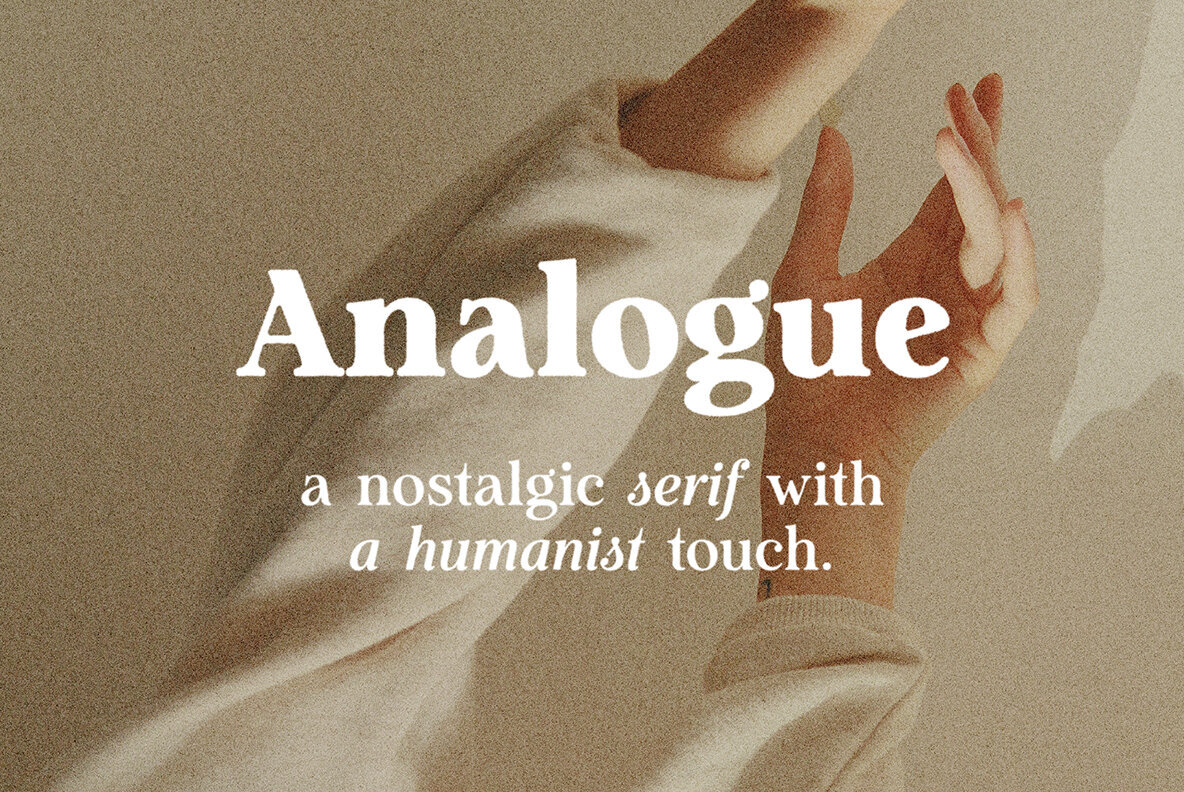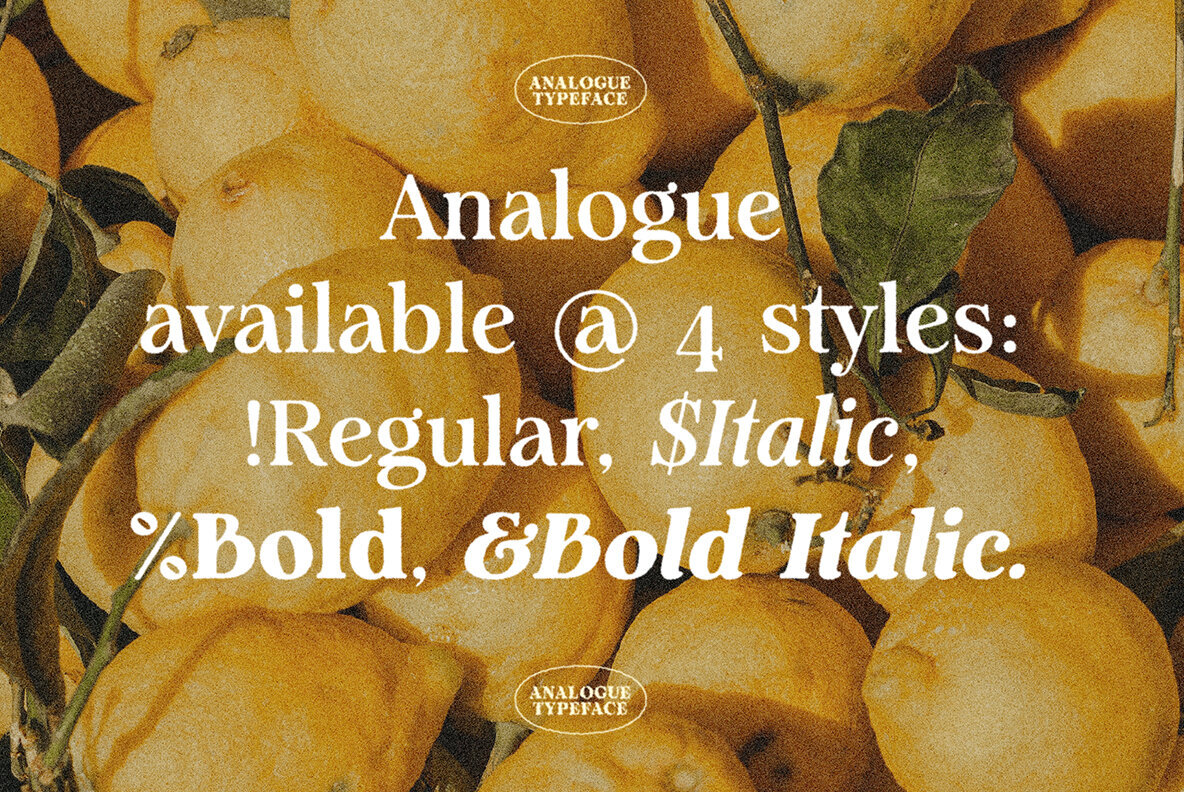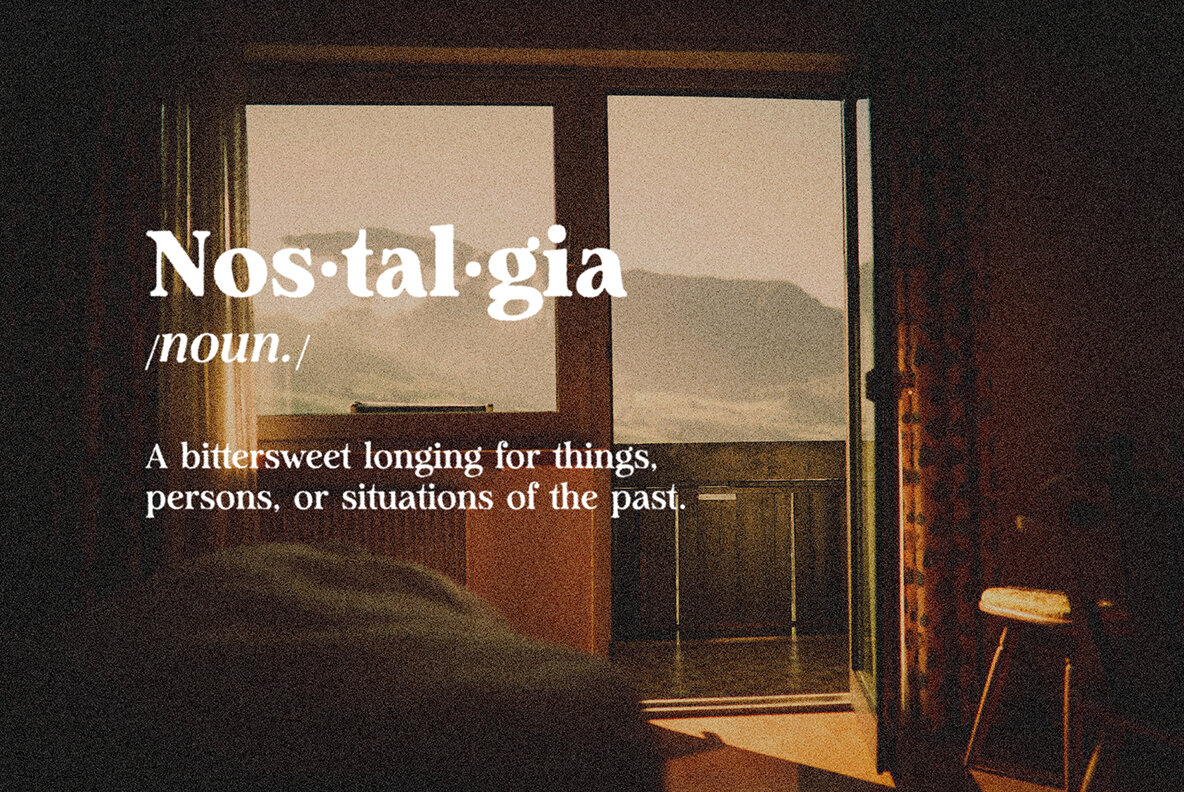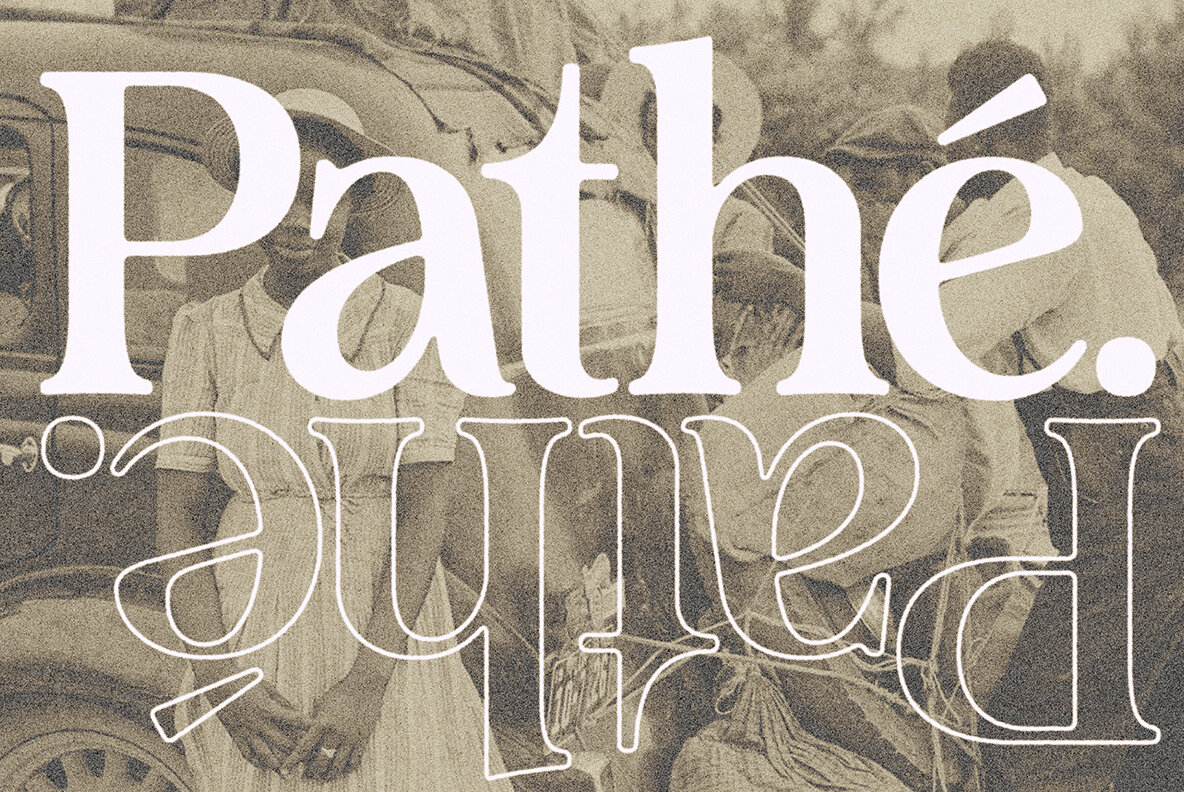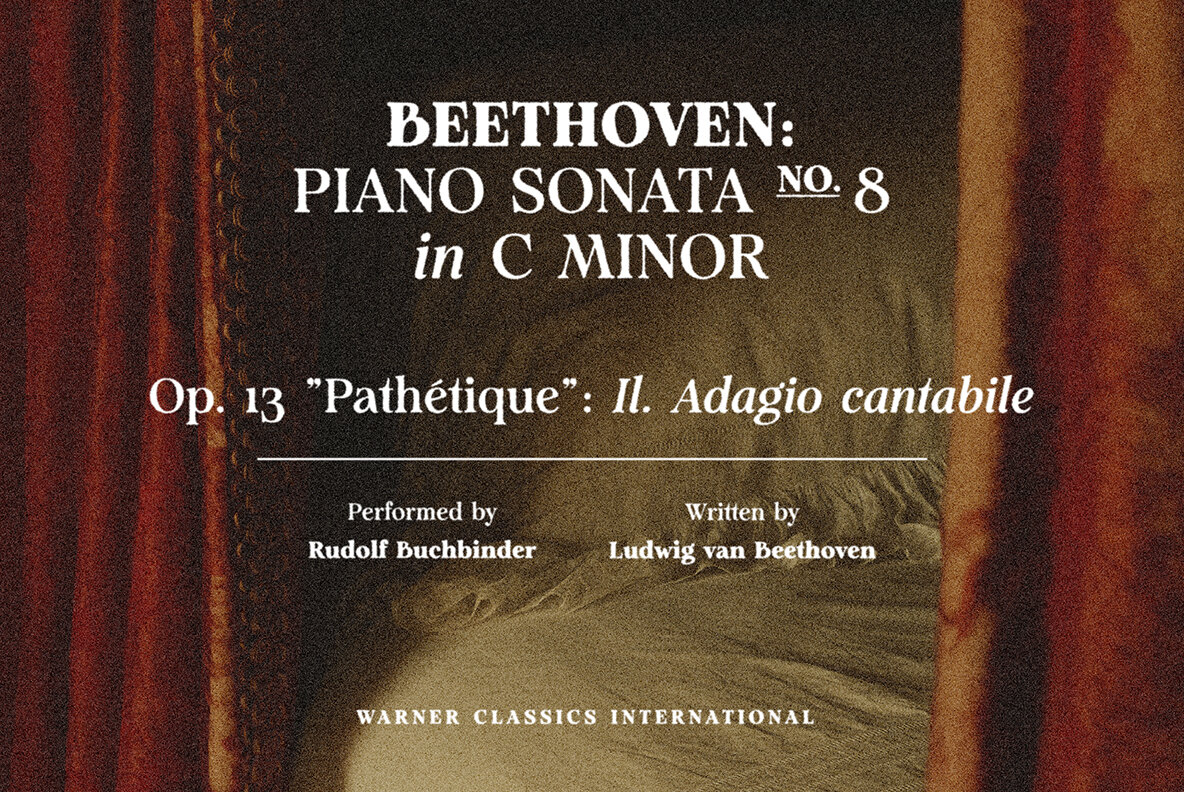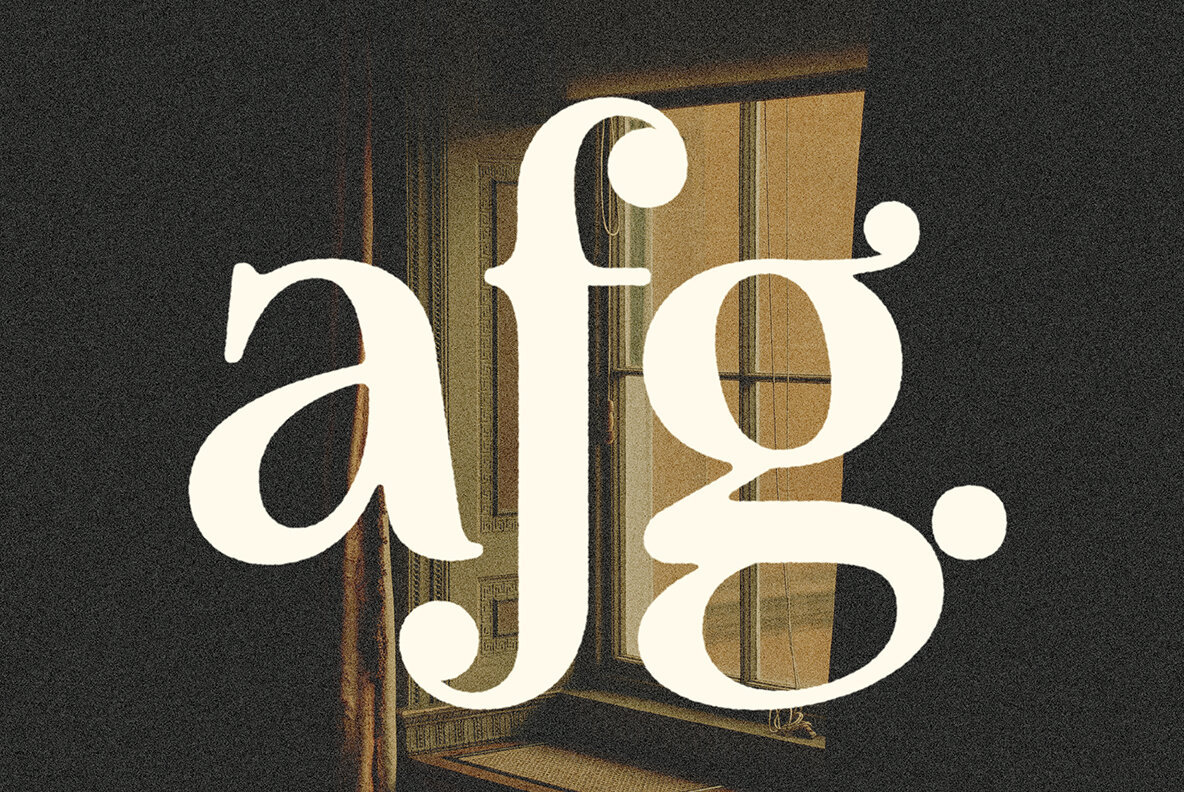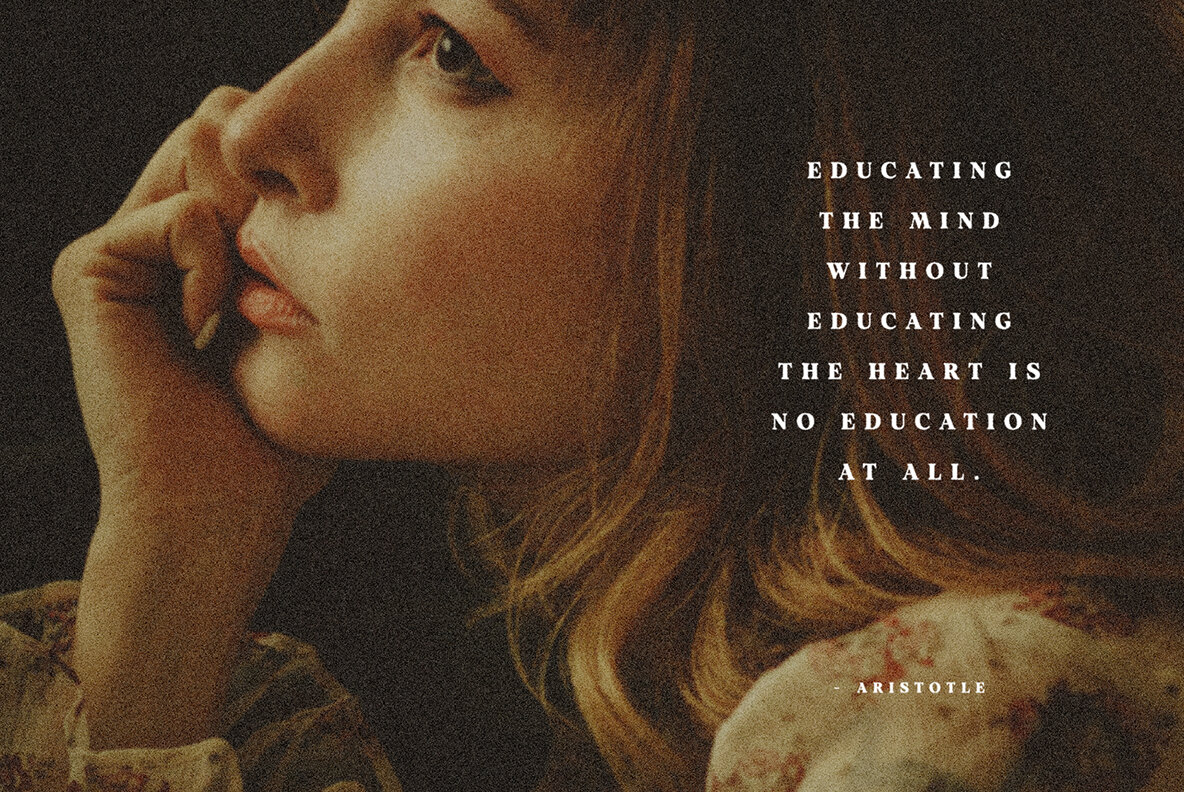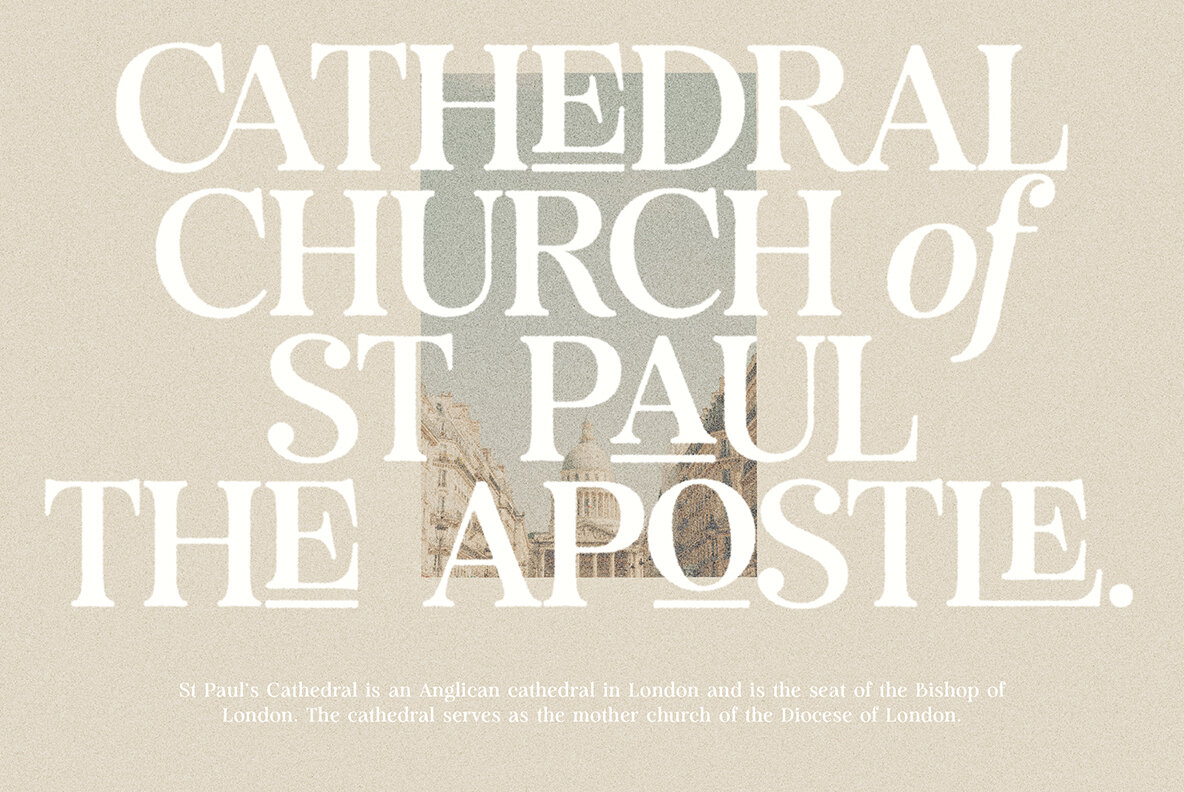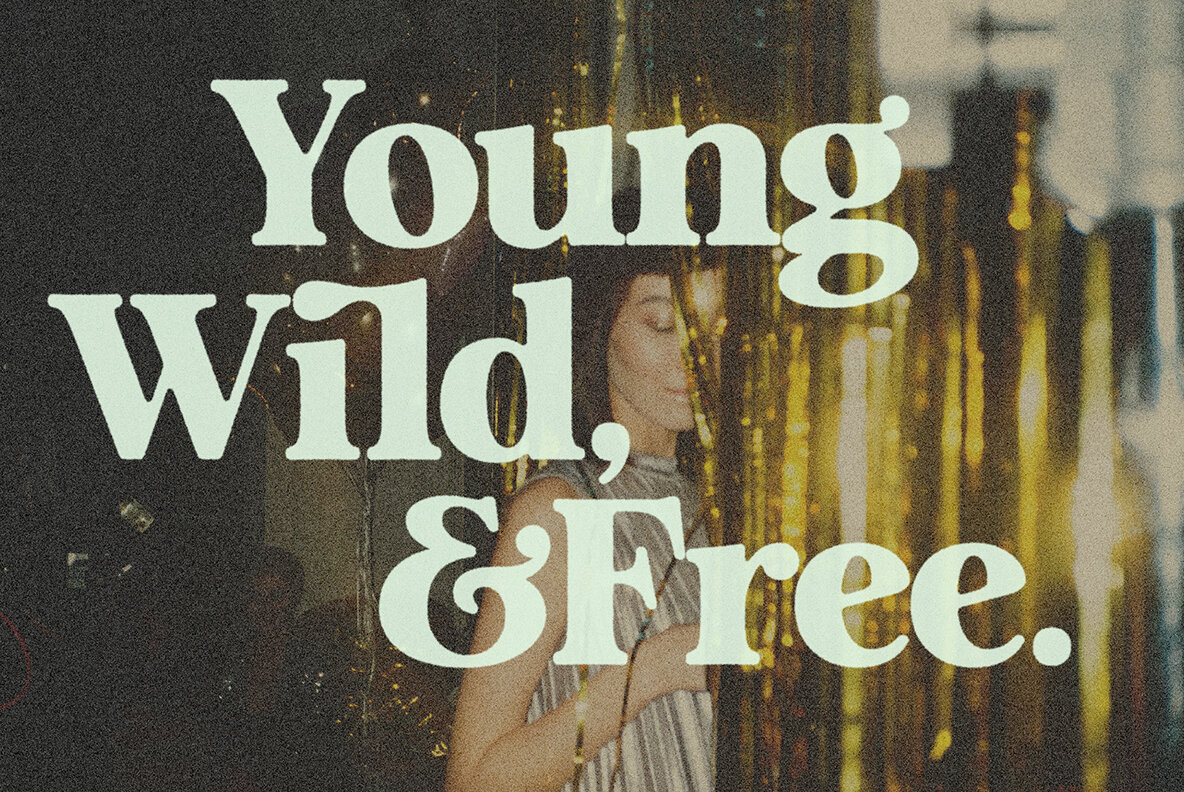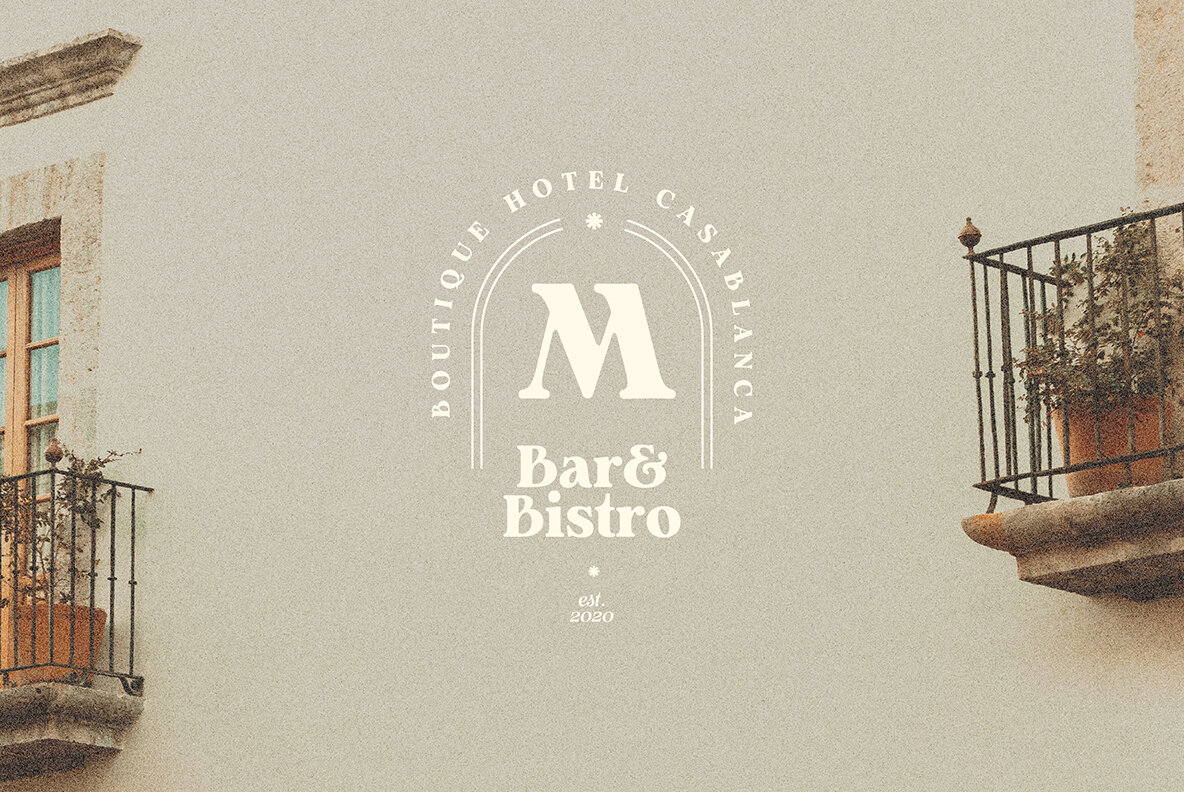
Analogue is a retro serif with a humanist touch. With its good readability, Analogue is perfect for both displays as well as body text. Inspired by all the retro aesthetics making a comeback, Analogue is perfectly suitable for creating nostalgic yet still elegant designs such as logos, packaging, editorial, and more.